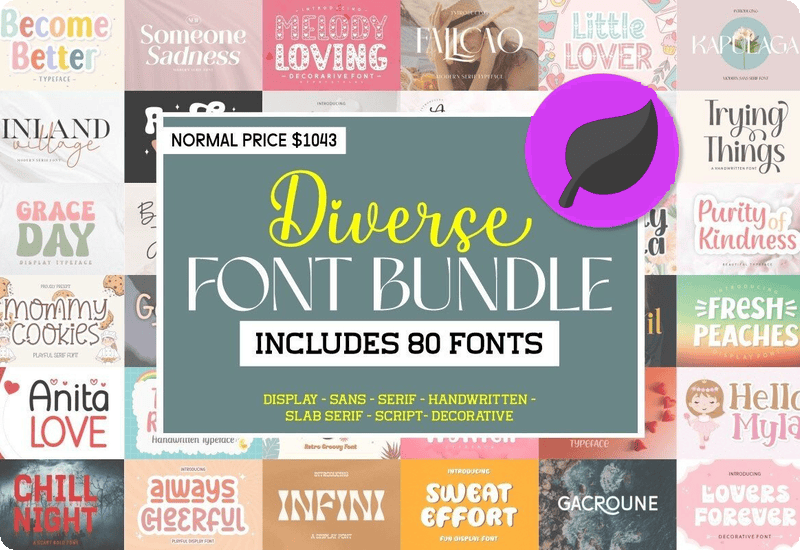
Crafted with precision and distinctiveness by the talented font designer Damai from 7NTypes, Diverse Font Bundle caters to a wide range of design styles and projects. Whether you’re working on a branding project, print materials, websites, or any other creative endeavor, these fonts will effortlessly elevate your work to the next level.
A Selection of Unique and Versatile Fonts
This curated selection of fonts includes an array of script and handwritten fonts, elegant serif fonts, bold display fonts, decorative fonts, and versatile sans serif fonts. Each font carries its own personality and character, enabling you to find the perfect match for your specific design needs.
Let’s take a glimpse into some of the remarkable fonts included in this bundle:
- Trying Things Script & Handwritten Font: Express your creativity with this playful and versatile font, perfect for adding a personal touch to your designs.
- Painting Vintage Sans Serif Font: Embrace the vintage charm and add a touch of nostalgia to your projects with this classic, yet stylish font.
- Tears Easily Serif Font: Make a bold statement with this unique and expressive serif font, ideal for headlines, logos, and branding.
- Chill Night Display Font: Add a cool and contemporary vibe to your designs with this eye-catching display font, perfect for attention-grabbing headlines and titles.
- Ghabril Fontes Serif Font: Infuse your designs with elegance and sophistication using this versatile and well-crafted serif font.
Premium Fonts included in the Diverse Font Bundle:
- Trying Things Script & Handwritten Font
- Painting Vintage Sans Serif Font
- Christmas Awaits Decorative Font
- Snoring Serif Font
- Tears Easily Serif Font
- Cahyana Sans Serif Font
- Sweet Retro Display Font
- One Sided Sans Serif Font
- Beautiful Memory Script & Handwritten Font
- Keep Guard Slab Serif Font
- Melody Loving Decorative Font
- Start Step Script & Handwritten Font
- Onceupon Slab Serif Font
- Become Better Script & Handwritten Font
- Sellony Script & Handwritten Font
- Loved Angel Decorative Font
- Alinoe Serif Font
- Make It Catchy Script & Handwritten Font
- Mommy Cookies Serif Font
- Huncy Display Font
- Gentle Heart Serif Font
- Funky Vibes Display Font
- Flying Script & Handwritten Font
- Change World Sans Serif Font
- Sportactive Display Font
- Someone Sadness Serif Font
- Inland Village Serif Font
- Grace Day Display Font
- Melody School Script & Handwritten Font
- Eyelids Display Font
- Purity of Kindness Script & Handwritten Font
- Beautiful Jessica Script & Handwritten Font
- Action Comic Display Font
- Always Cheerful Display Font
- Boana Display Font
- Simple Delight Script & Handwritten Font
- Hello Myla Display Font
- Beryera Script & Handwritten Font
- Walking Alone Display Font
- Pinky Magic Polices Décoratives Police)
- Chill Night Display Font
- Spring Spirit Polices Manuscrites Police)
- Good Mind Decorative Font
- Bolaga Sans Serif Font
- Spare Time Slab Serif Font
- Fresh Peaches Display Font
- Bringing Fortuna Slab Serif Font
- Infini Display Font
- Get Back to You Script & Handwritten Font
- Retro Peace Display Font
- Kapulaga Sans Serif Font
- Super Baki Display Font
- Anita Love Script & Handwritten Font
- Twilight Rainbow Script & Handwritten Font
- Caring Charity Serif Font
- Never Regret Display Font
- Chill Oute Sans Serif Font
- Enharty Gracella Script & Handwritten Font
- Lucky Moment Display Font
- Lovers Forever Decorative Font
- Rossea Sans Serif Font
- Brielle Loving Display Font
- Sweat Effort Display Font
- Hamtin Script & Handwritten Font
- Little Lover Decorative Font
- Anggie Manish Script & Handwritten Font
- Fallcao Serif Font
- Ghabril Fontes Serif Fonte
- Hamega Fuentes Caligráficas Fuente
- Mother Stella Script & Handwritten Font
- Eloise Wynter Display Font
- Merlyna Script & Handwritten Font
- Gae Koffa Display Font
- Yestynia Script & Handwritten Font
- Gacroune Sans-Serif-Schriftarten Schriftart
- Soul Mighty Fuentes Caligráficas Fuente
- Getting Easier Display Font
- Shady Moment Serif Font
- Missing Ration Czcionki do Wyświetlania Czcionka
- Famova Skript-Schriftarten Schriftart